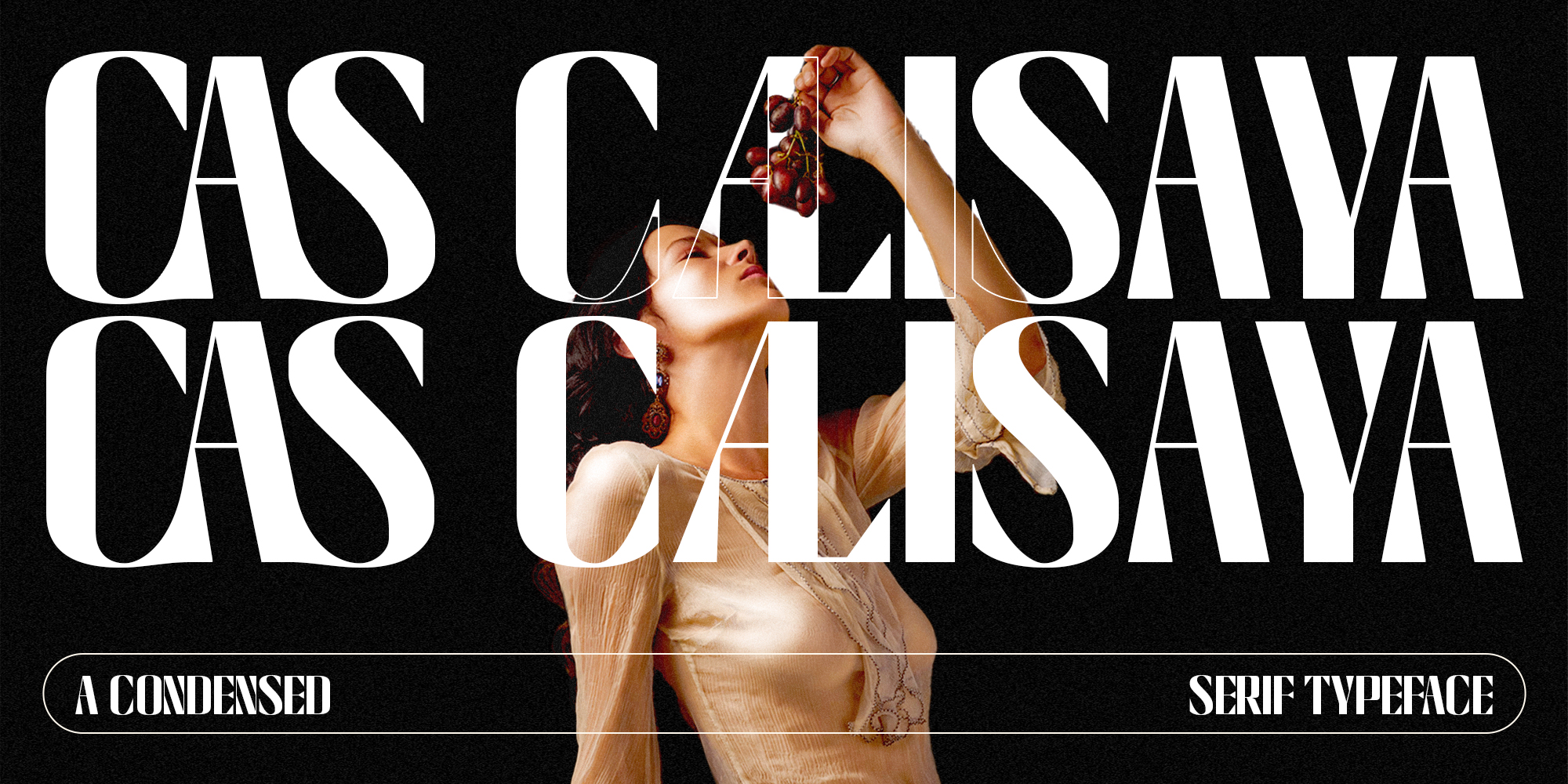
CAS Calisaya Font is perfect for botanical branding, herbal medicine packaging, natural wellness promotions, organic product labels, traditional remedy marketing, ecological research publications, indigenous culture projects, and authentic plant-based communications.
This distinctive serif typeface is exciting because it captures the ancient wisdom and natural healing power of traditional botanicals through organic letterforms that evoke the medicinal properties and cultural heritage of indigenous plant knowledge.
The CAS Calisaya Font family includes light, regular, medium, and bold weights with botanical alternates, herbal decorative elements, and natural flourishes that enhance the authentic, healing atmosphere of any plant-based design project.
Natural and healing, CAS Calisaya Font Free Download brings the ancient wisdom of traditional botanical medicine to contemporary typography through authentic herbal character. This remarkable font embodies the time-tested knowledge and natural healing power that connects modern wellness with indigenous traditions, making it invaluable for brands celebrating natural health and traditional medicine. Its organic character reflects the gentle effectiveness and holistic approach that defines quality herbal remedies, resonating with consumers seeking authentic alternatives to synthetic solutions. Perfect for natural health companies and botanical researchers, this font ensures your message carries the healing authenticity and traditional credibility that health-conscious consumers trust for their wellness needs. Whether used for herbal supplement packaging or ethnobotanical research, CAS Calisaya Font Free Download delivers the natural wisdom and botanical authenticity that connects with people committed to supporting their health through traditional plant medicines and the ancient knowledge that guides natural healing practices.